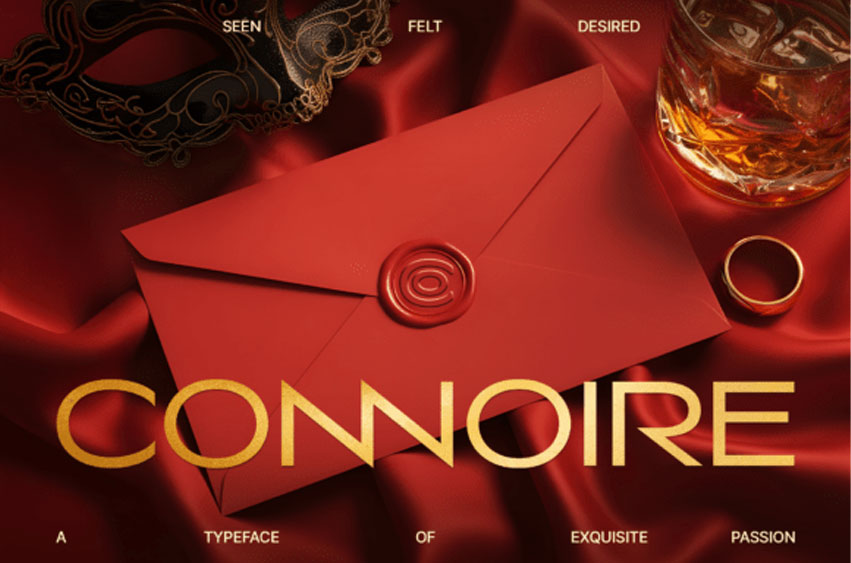
Connoire Font
Connoire Font is the typeface that doesn’t just display text—it embodies a lifestyle. Designed for those who appreciate the intoxicating blend of luxury, passion, and high-class mystique, Connoire is the visual equivalent of a secluded lounge, the glint of whiskey in low light, and the silk-smooth promise of a late-night encounter.
This is more than a font; it’s a statement. Connoire captures a deeply sensual and expensive aesthetic, with a contemporary-classic design that is both bold and impossibly refined. Its clean lines and evocative curves are meticulously crafted to convey a feeling of effortless elegance, making your brand not just seen, but felt and desired.